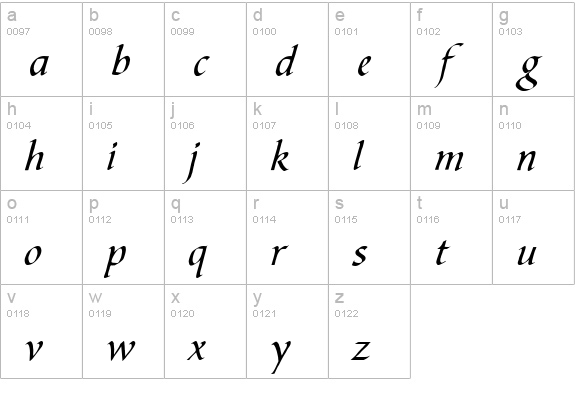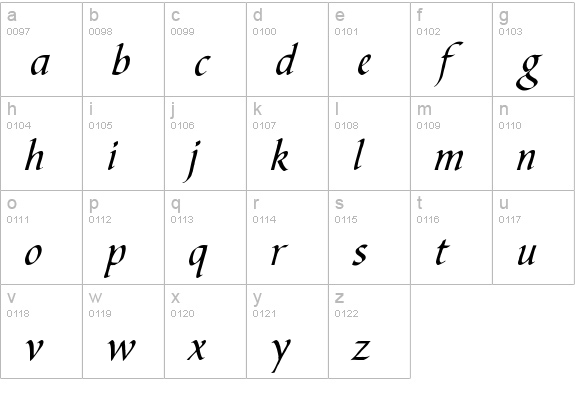
B730-Script-Regular Font Details
B730-Script-Regular is the standard, neutral variant in the B730 typeface family \xE2\x80\x94 well suited to general body text, paragraphs, and standard typographic work.
B730-Script-Regular font is a beautiful and elegant script typeface that exudes sophistication and charm. Its flowing strokes and delicate curves make it perfect for adding a touch of class to any project. Whether you're designing invitations, greeting cards, or branding materials, this font is sure to elevate your work to the next level. The best part? B730-Script-Regular font is completely free to download at FontsMarket.com. Now you can access this stunning font without breaking the bank. Don't miss out on the opportunity to enhance your designs with this versatile and stylish typeface. Download it today and let your creativity shine!